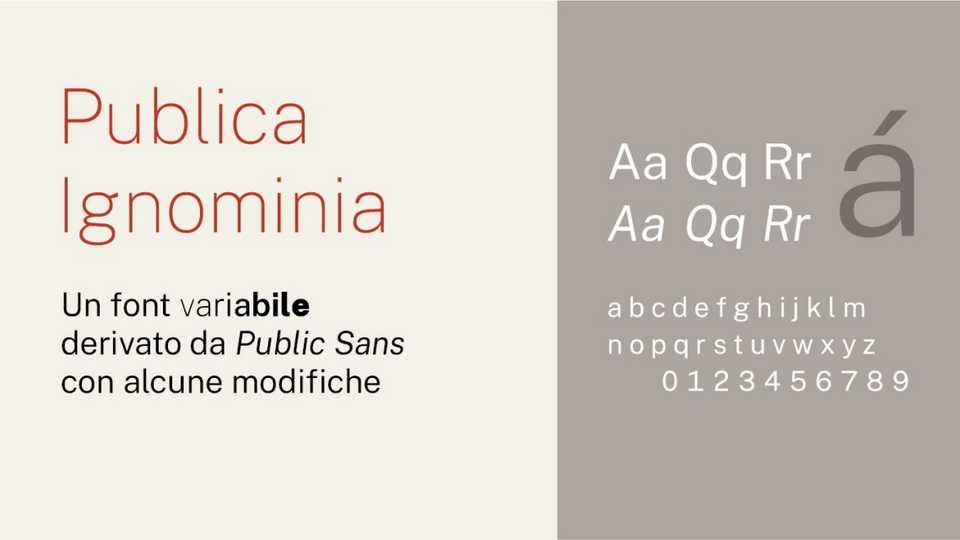
Download Publica Ignominia font, a versatile sans serif typeface that builds on the clean, modernist design of Public Sans, perfect for a wide range of applications.
Designer: Michele Casanova